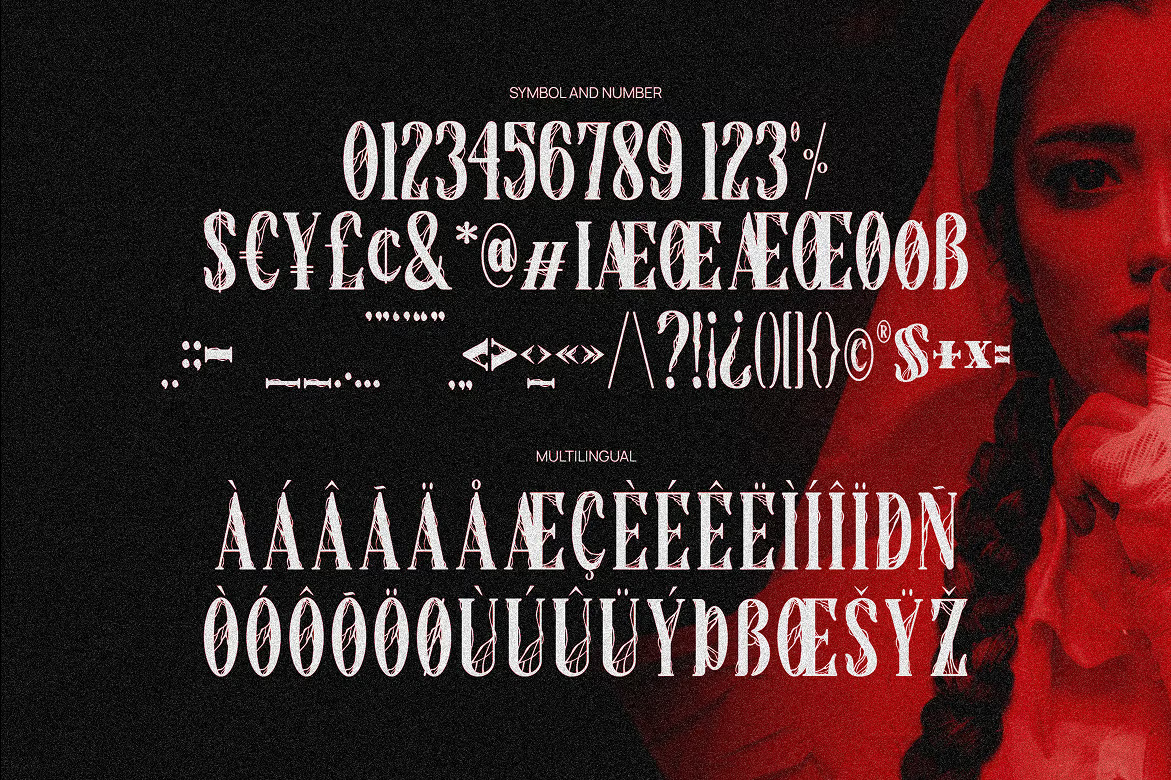
Bloodrage Gothic Display Font
Bloodrage Gothic Display Serif is a striking and dramatic typeface inspired by the intricate details of gothic architecture and the mysterious allure of dark fantasy. With its sharp edges, bold serifs, and commanding presence, this font is perfect for headlines, posters, book covers, branding, and any design that demands attention. Its finely crafted letterforms evoke a sense of medieval grandeur and mystique, making it ideal for horror, fantasy, and gothic-themed projects.
Bloodrage Gothic Display Serif Font